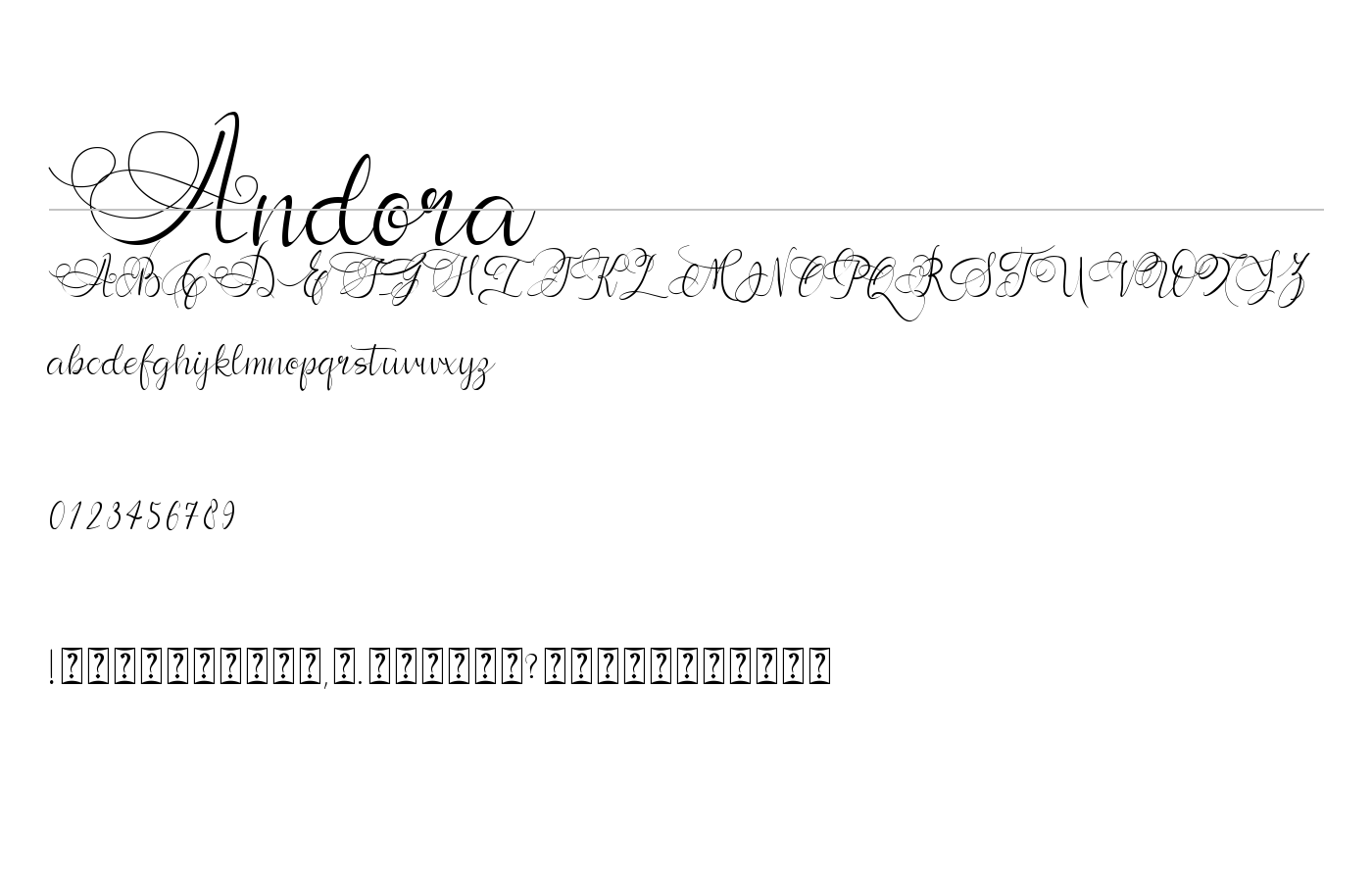
Andora is a highly decorative script font featuring elegant, flowing lines with elaborate swashes and flourishes, especially prominent in the uppercase letters. Its thin, delicate strokes and refined curves evoke a classic, romantic, and sophisticated feel, making it ideal for luxury branding, wedding invitations, and elegant logos. This font works best in large display settings where its intricate details can be appreciated, rather than in body text.
Andora Font